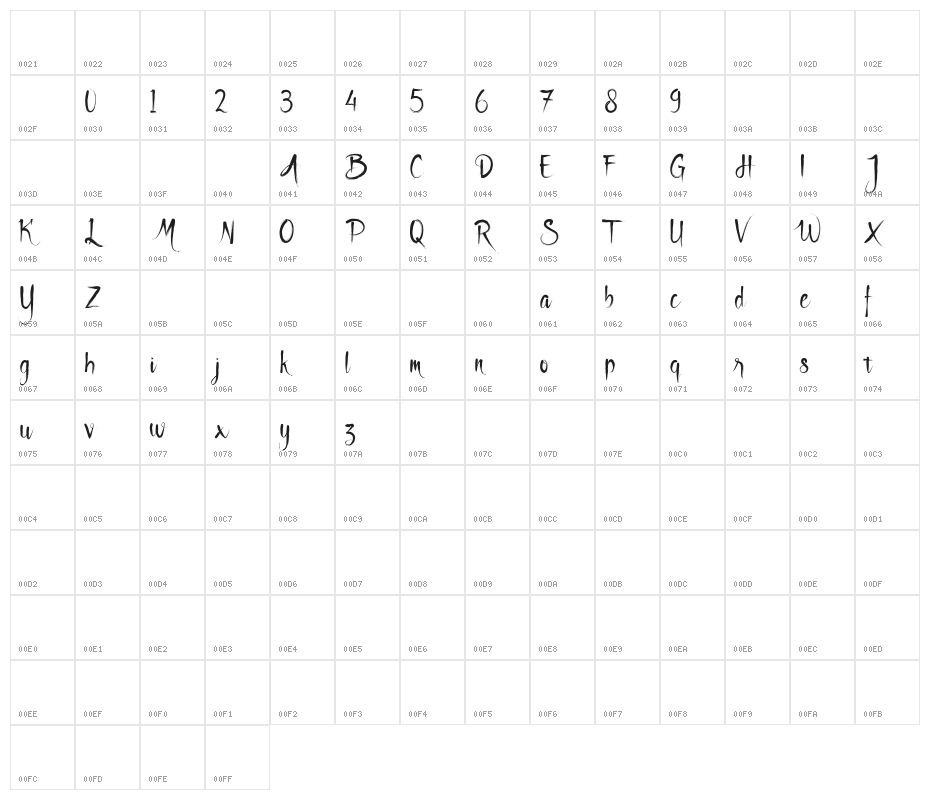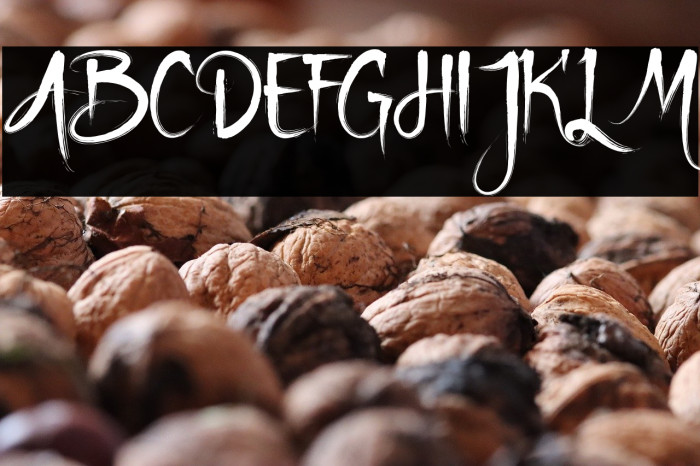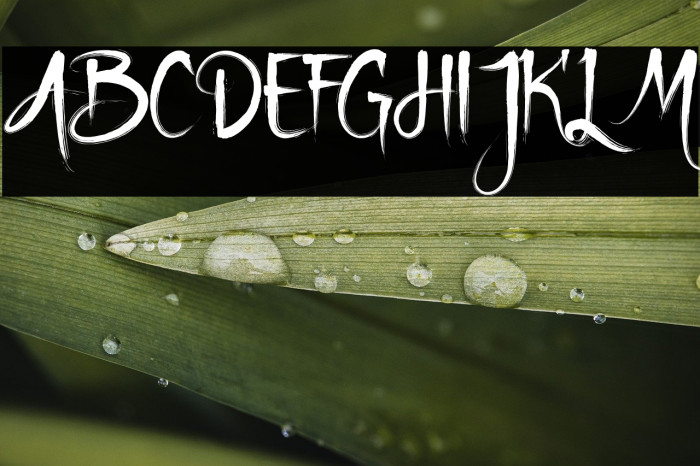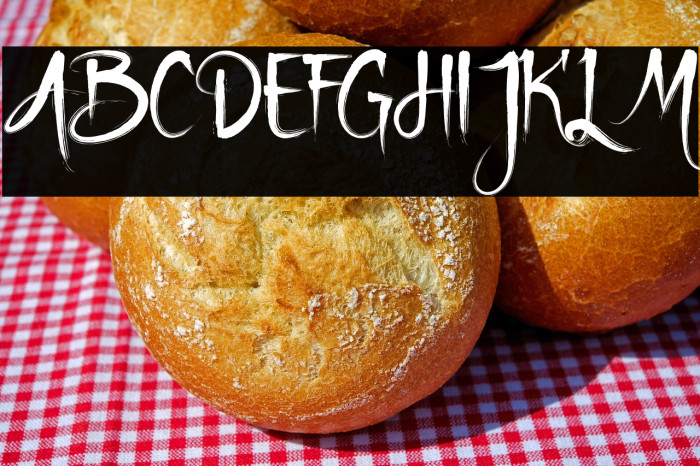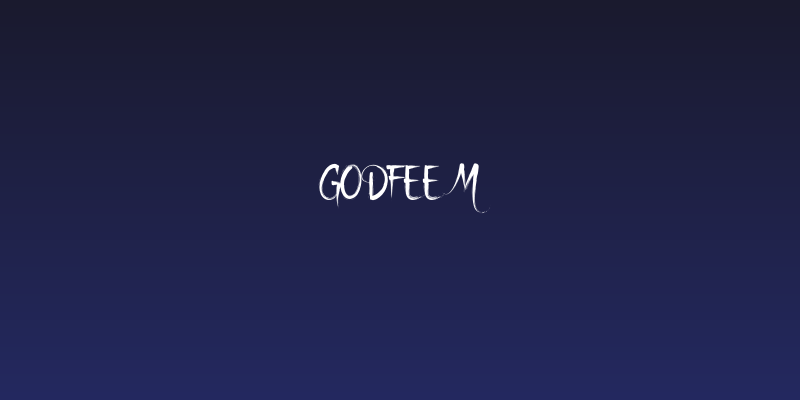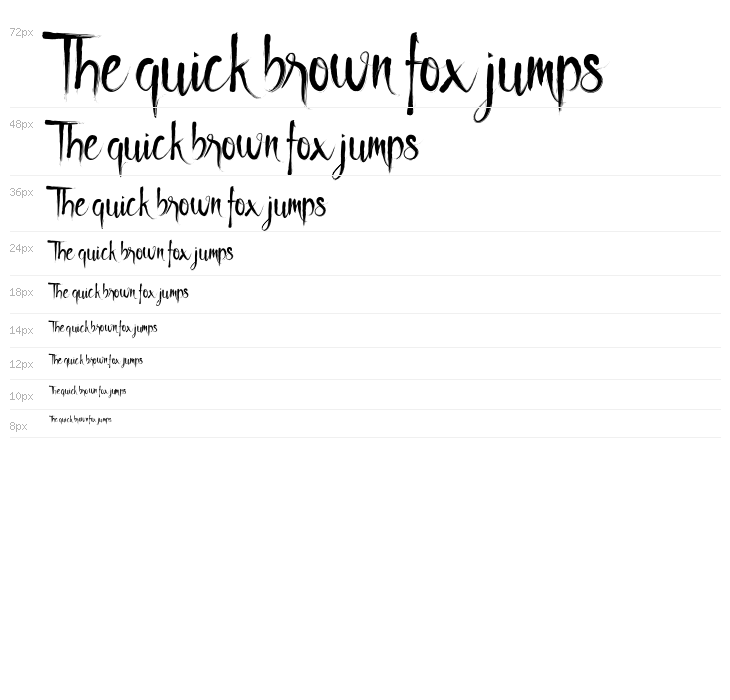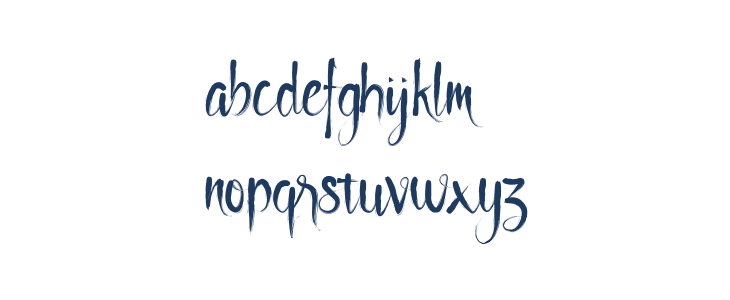
Godfeem Font
Godfeem Description
This font exhibits a dynamic and artistic brush style, characterized by its fluid and expressive strokes. The uppercase letters are bold and dramatic, with sweeping curves and a sense of motion, while the lowercase letters maintain a consistent flow with slightly more subtlety. The numbers are equally expressive, maintaining the brush-like quality throughout. The special characters are integrated seamlessly, adding to the font's versatility. Overall, this font conveys a sense of creativity and spontaneity, making it ideal for artistic and expressive design projects.
| Proposed Projects | Ideal for artistic projects, branding, posters, and invitations where a creative and expressive touch is desired. |